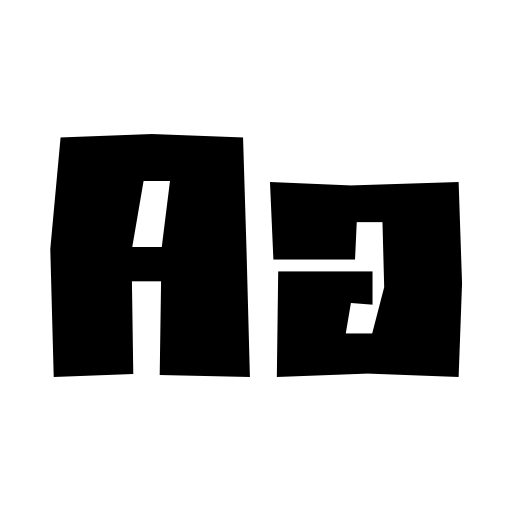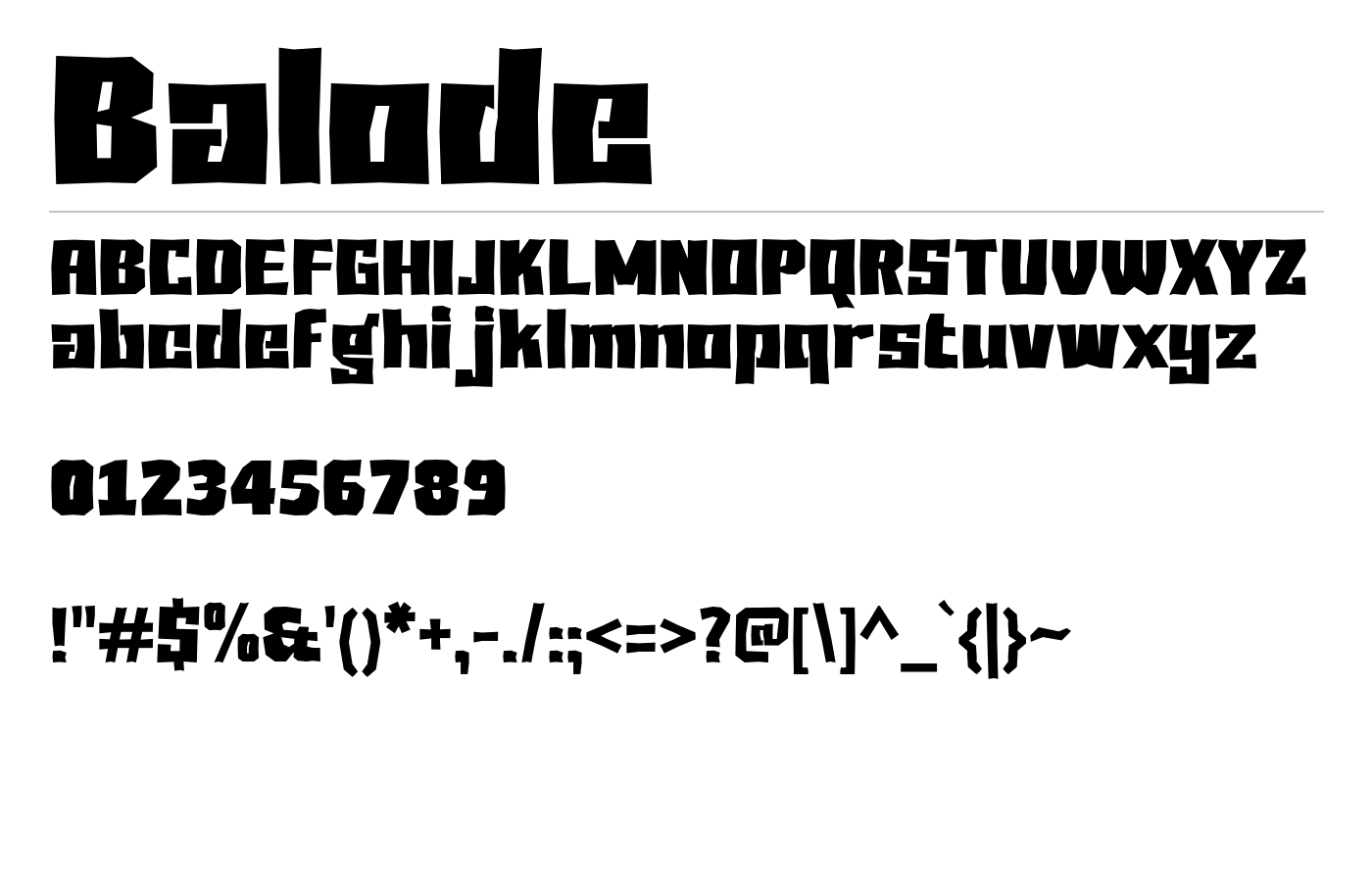
Balode is a bold, condensed sans serif font with a strong, playful character and slightly irregular geometric shapes that create a handcrafted, dynamic vibe. Its heavy weight, narrow width, and blocky letterforms make it ideal for impactful headlines, logos, and designs that need a quirky yet confident presence. This font works well in creative branding, posters, and editorial projects where personality and boldness are key.
Balode Font
About Balode Font
| Font family | Balode Font |
| Designer | Drizy Studio |